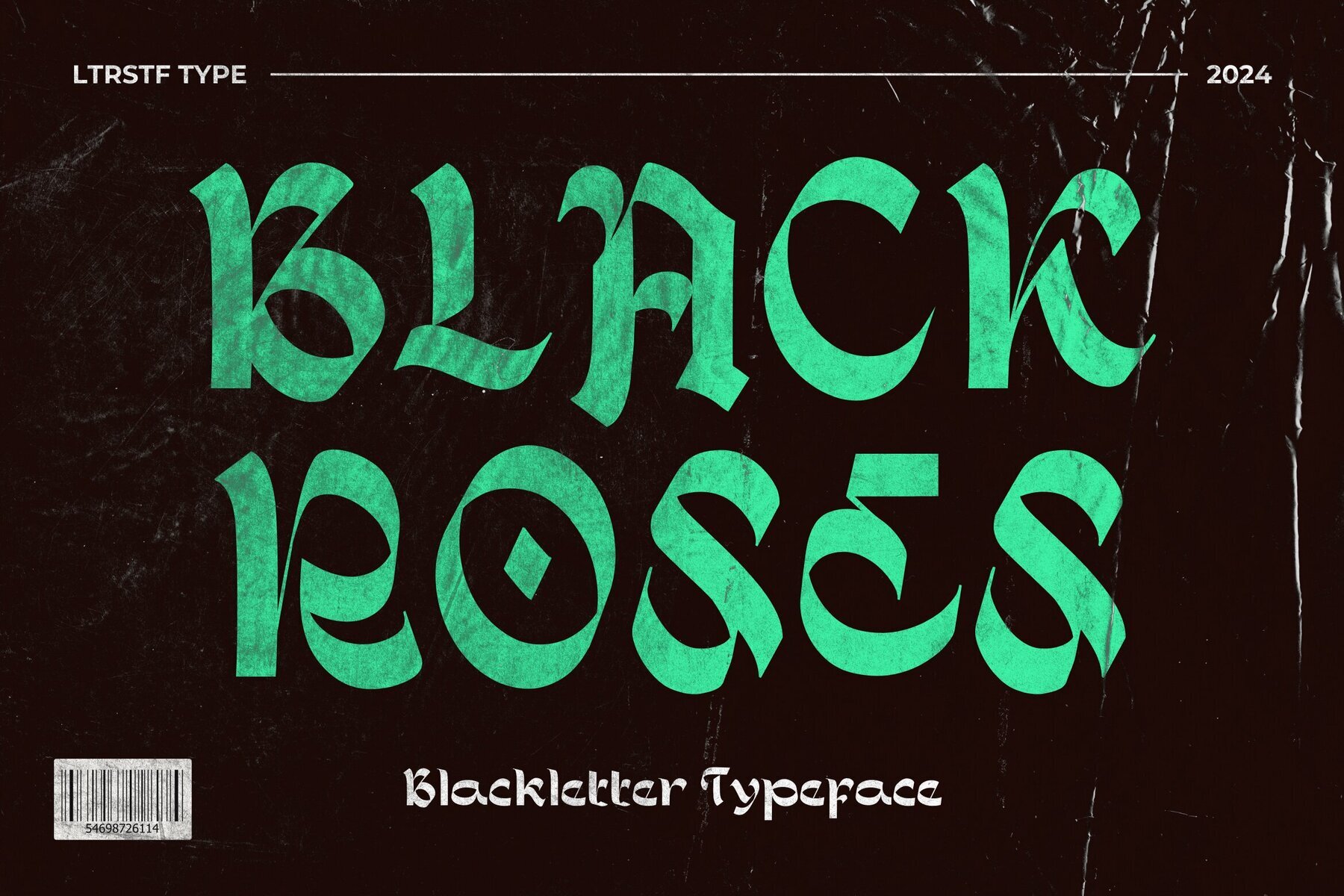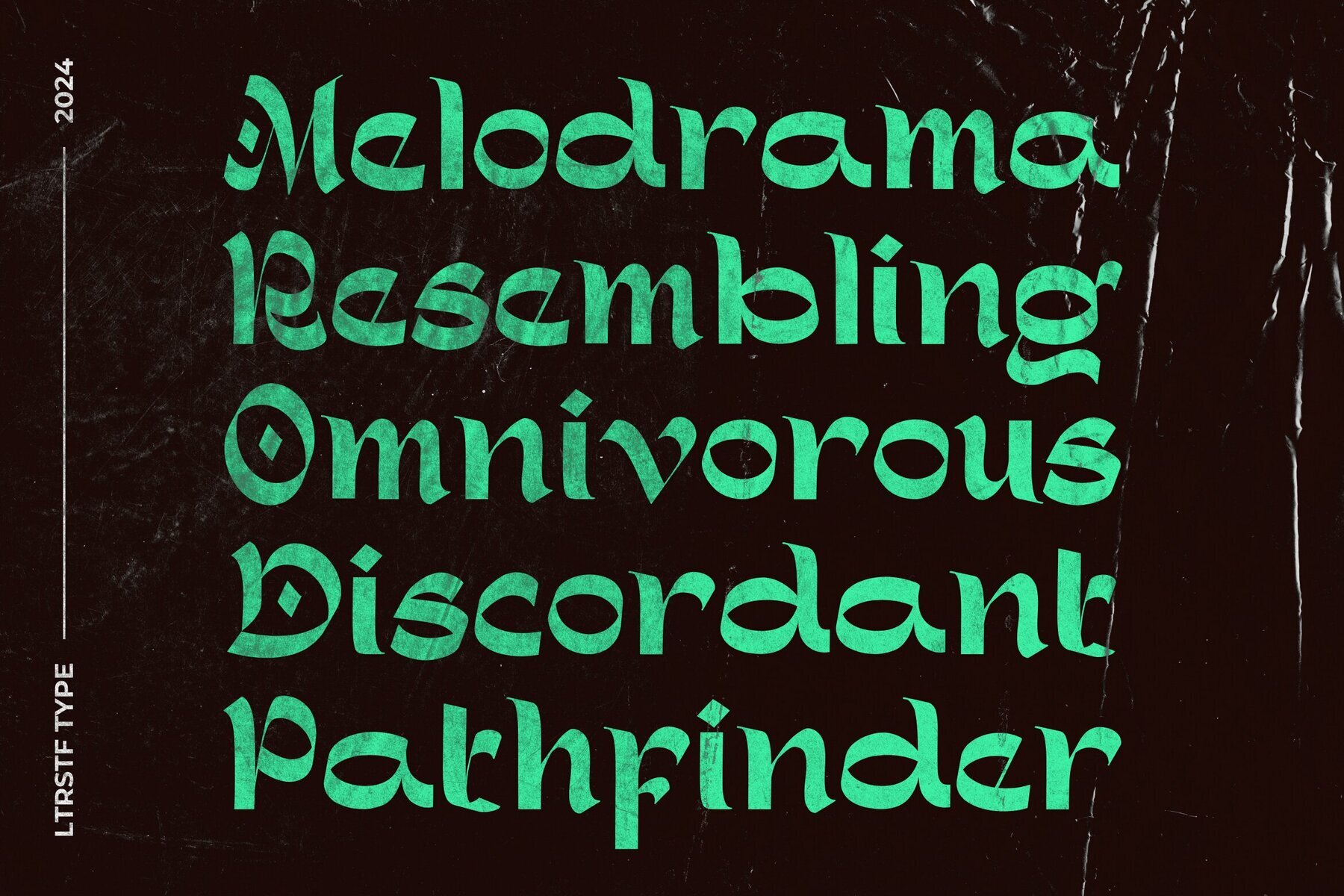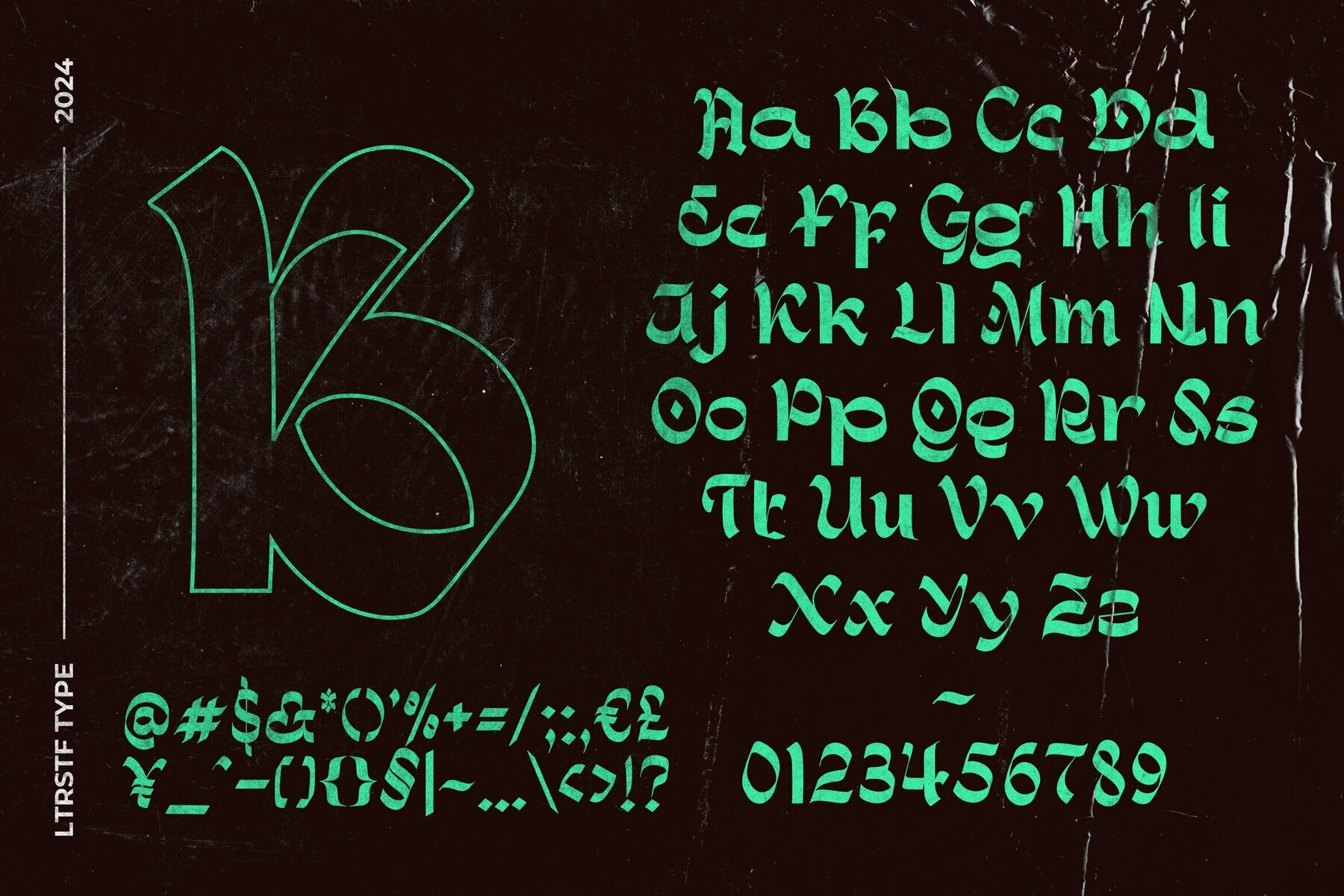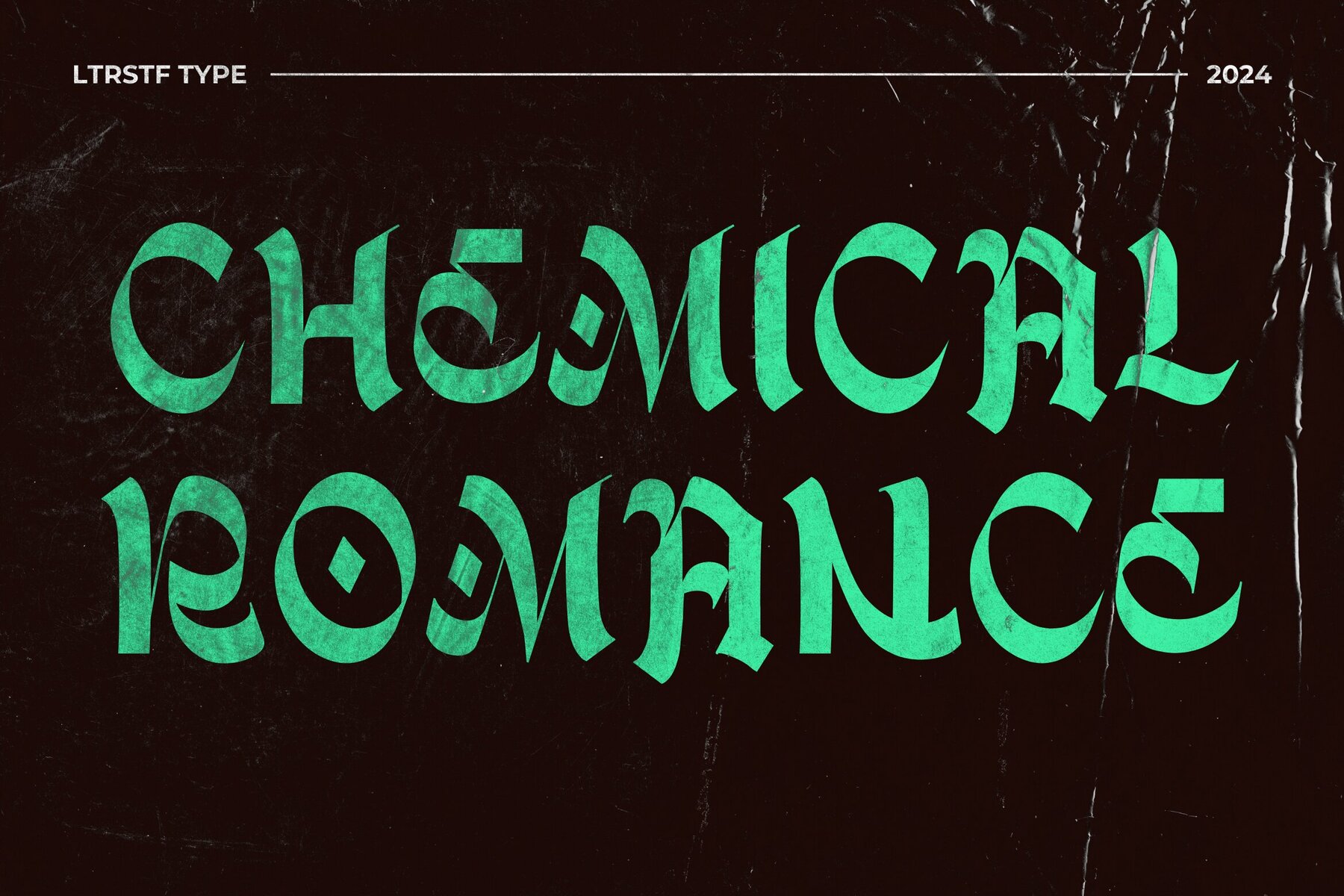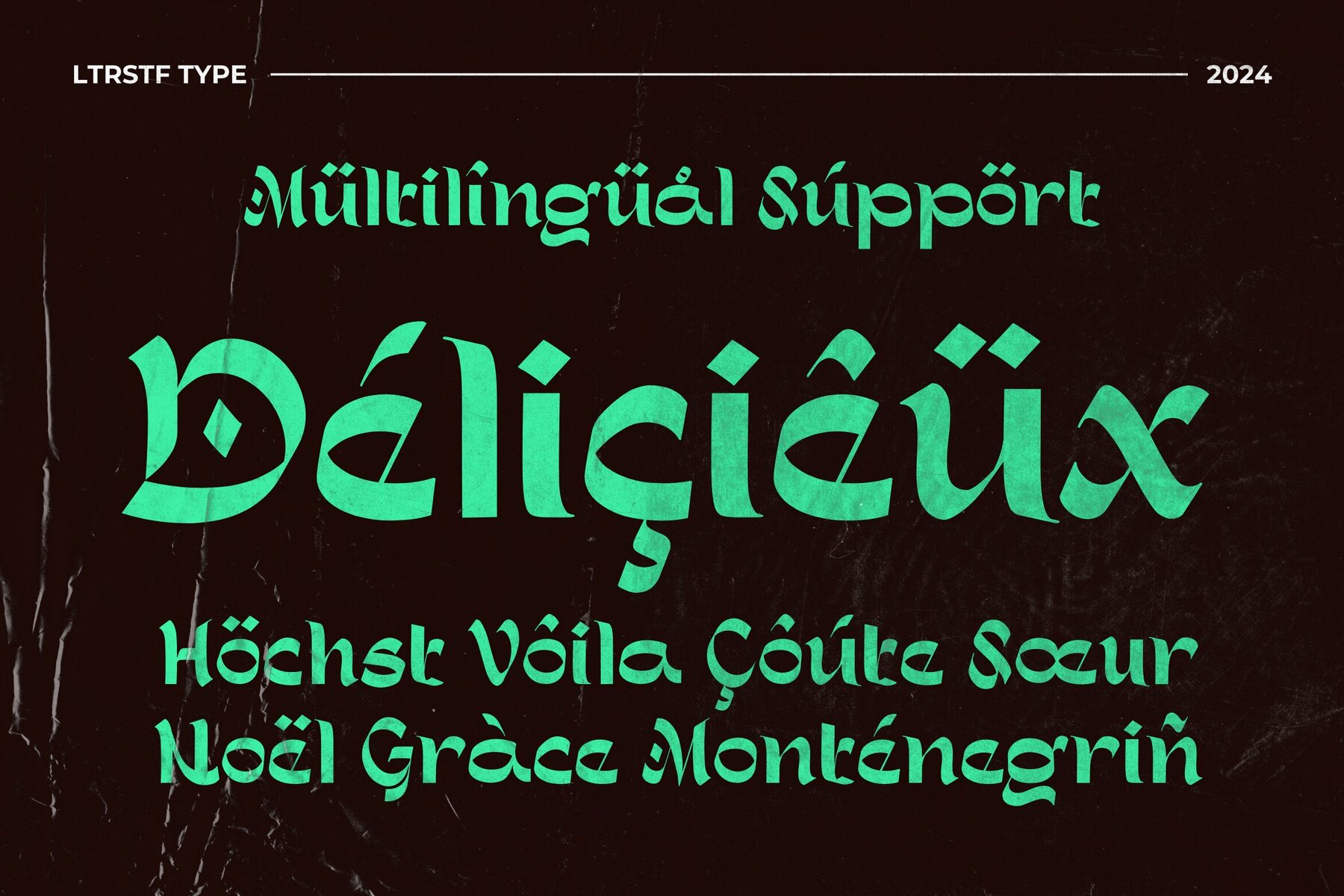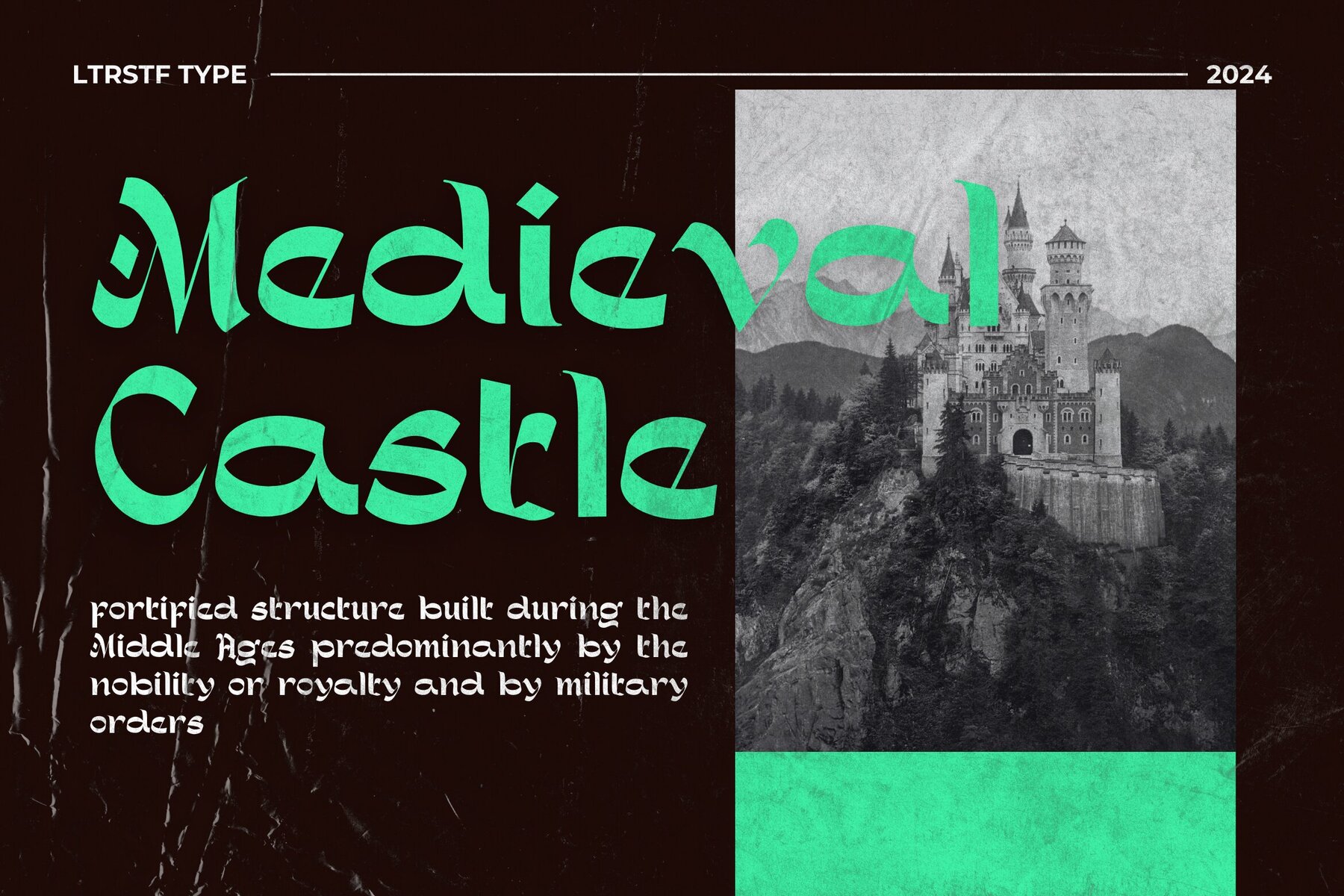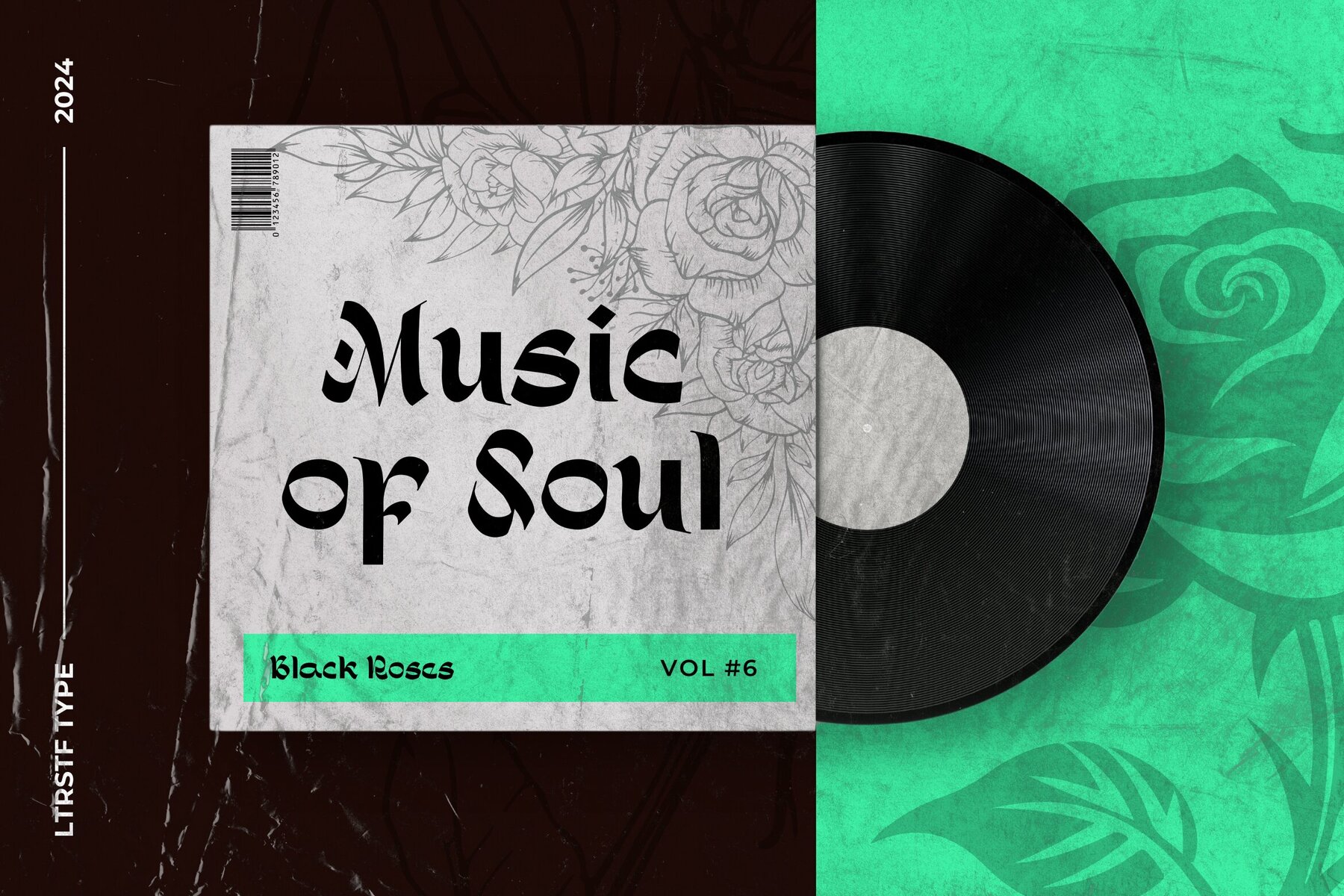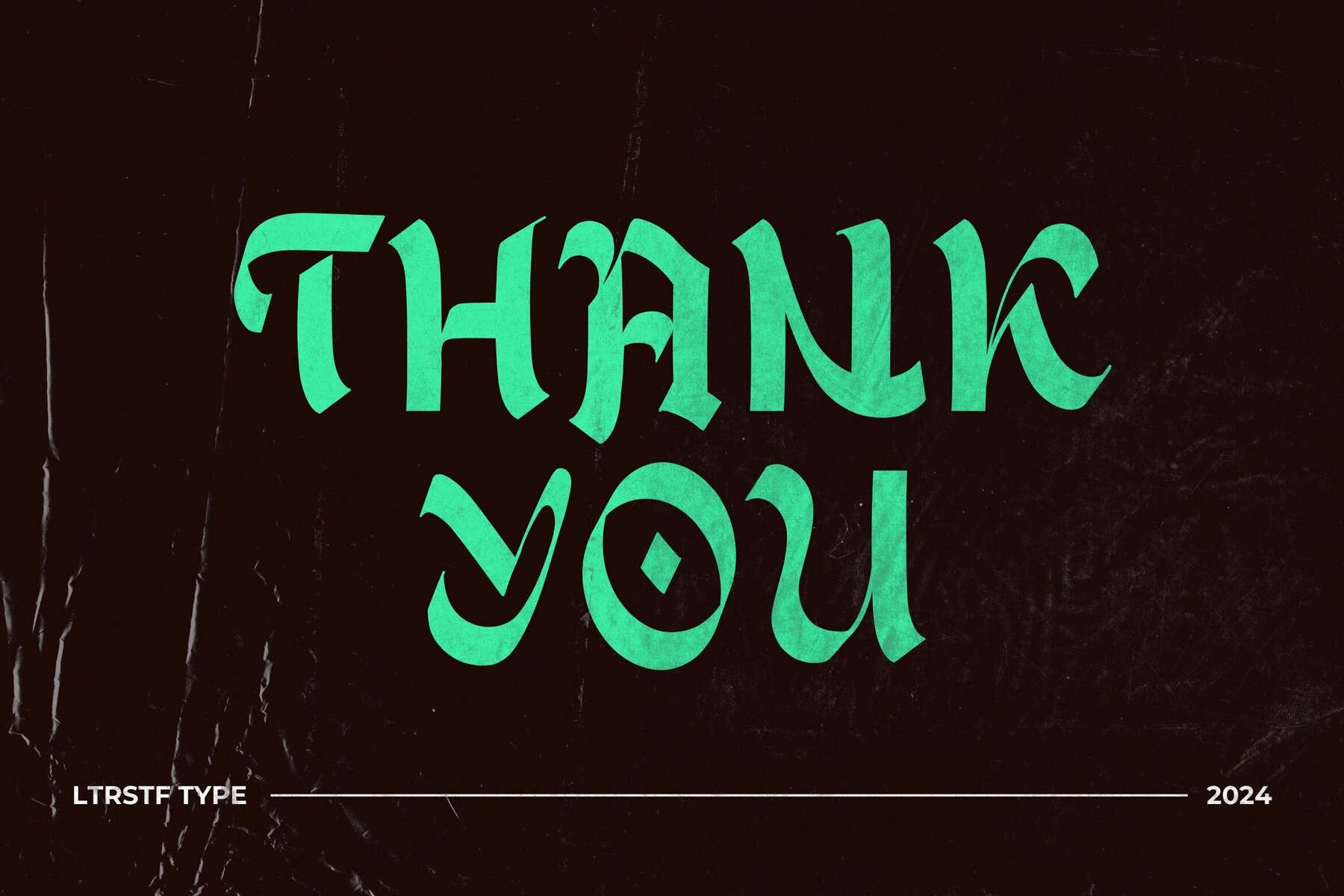
Blackroses Font
BLACKROSES
Blackroses font brings a unique fusion of elegance and edginess, drawing inspiration from traditional blackletter styles. This digital typeface incorporates striking sharp lines, making it an ideal choice for creating compelling logos, attention-grabbing headlines, and distinctive branding materials.
Blackroses font comes with a comprehensive set of features, including uppercase and lowercase letters, numerals, and punctuation, along with support for multilingual characters. This versatility ensures your designs are not only visually captivating but also linguistically inclusive, allowing for global application.